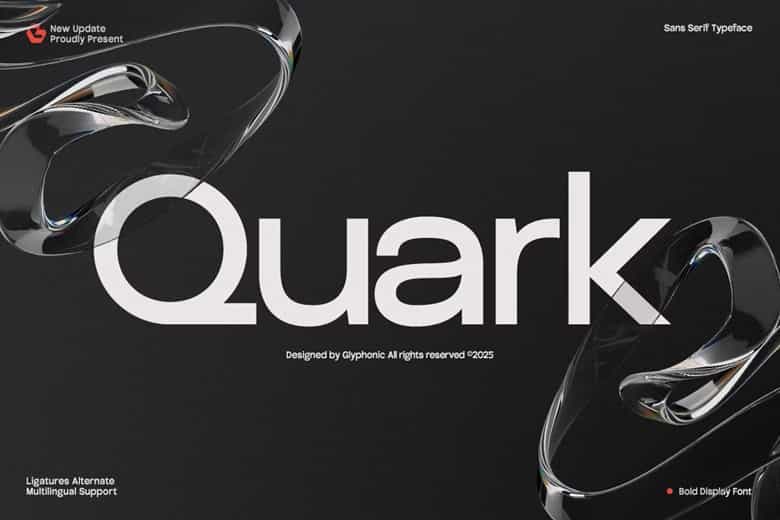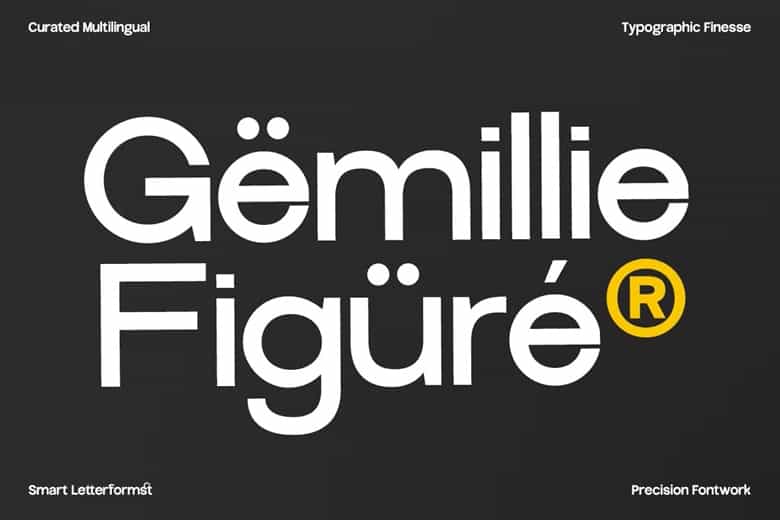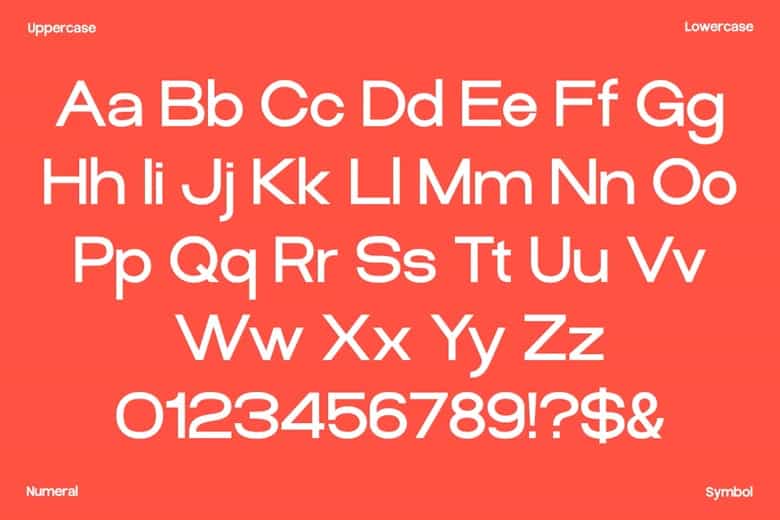
Quark is indifferently minimalistic modern sans serif font with exquisite clarity. It has a modern flair, and it is quite readable, so it is suited to branding, editorial design, logo, user interface, and product packaging design. Its clean lines, even stroke thickness, and geometric balance makes Quark sharp and professional.